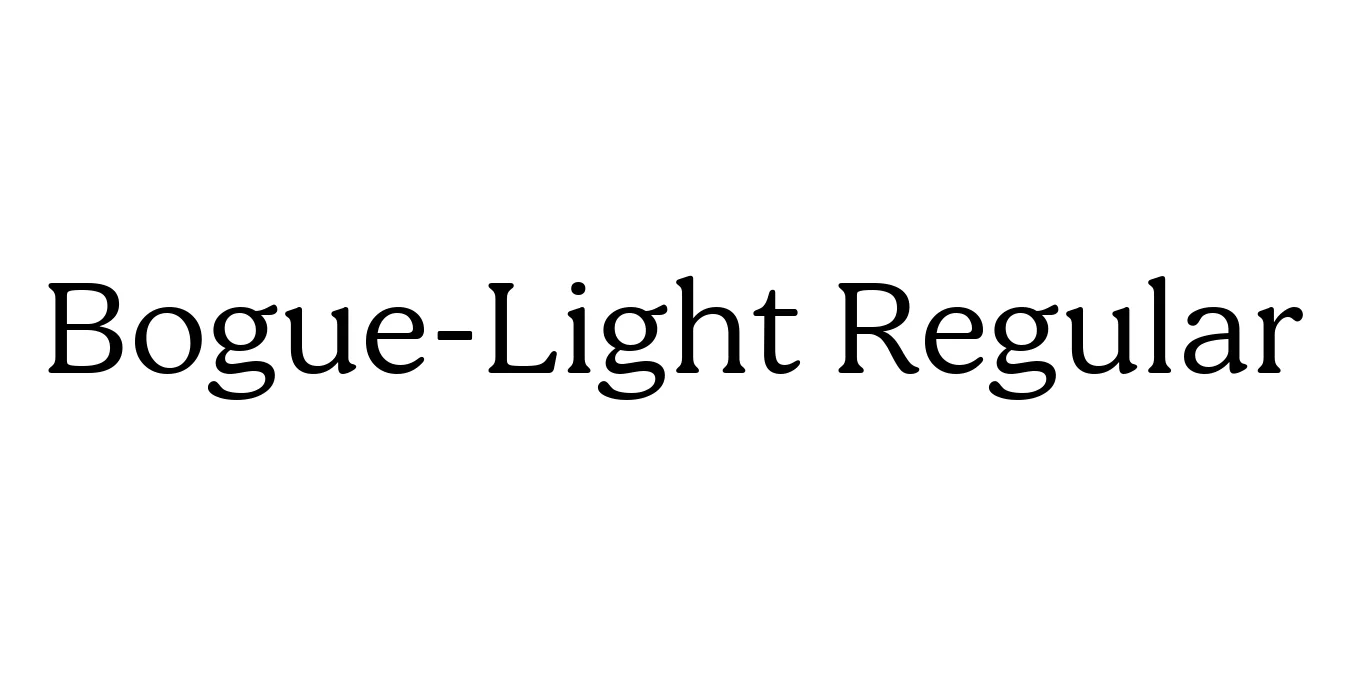
Bogue-Light Regular
Designed by Michiel de Boer
| Category | Slab Serif |
| Designer | Michiel de Boer |
Bogue-Light Regular is a sophisticated slab serif typeface designed by the renowned typographer Michiel de Boer. Characterized by its unique blend of geometric precision and organic softness, this font offers a refreshing take on the traditional slab serif genre. The Light weight specifically emphasizes clarity and elegance, featuring open counters and refined terminals that maintain legibility even at smaller point sizes.
The development of Bogue focused on creating a versatile tool for modern communication. Its balanced proportions and distinctive character allow it to transition seamlessly between high-impact headlines and delicate body text. Whether utilized in digital interfaces or high-quality print media, Bogue-Light Regular provides a contemporary aesthetic that conveys professionalism with a friendly, approachable undertone.
Bogue-Light Regular Best Uses
Excellent for magazine headers, pull quotes, and sophisticated layout sections.
Highly effective for lifestyle brands looking for a balance between traditional and modern aesthetics.
Clean and legible for sub-headings and feature text on professional websites.
Provides a unique visual identity for minimalist and upscale corporate logos.